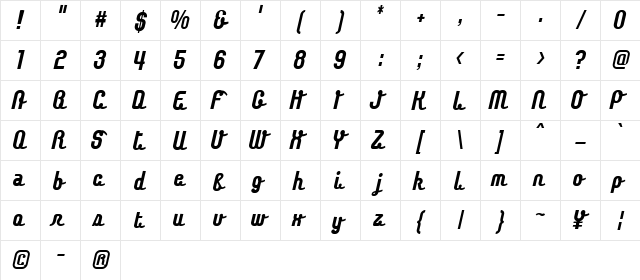
Chaingochic Bold
Design Context for Chaingochic Typeface
Chaingochic is a composed and adaptable typeface that performs quietly and consistently across a wide range of design contexts. The heavy weight commands attention and anchors typographic hierarchies.